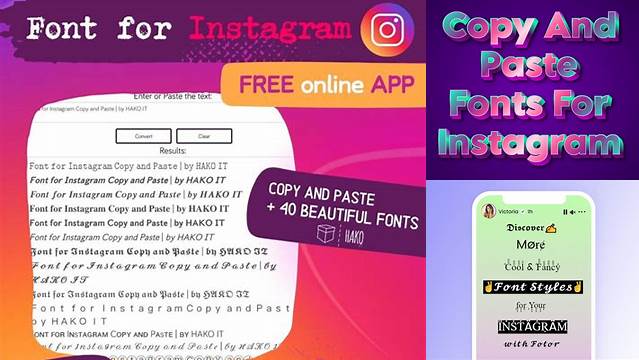
Cool Fonts For Instagram On IPhone: Copy & Paste!
Hey guys! Want to spice up your Instagram game? Let's talk about fonts for Instagram on iPhone! You know, those cool and quirky fonts you see in bios and captions that make you go, "How did they do that?" Well, it's easier than you think, and we're going to dive deep into all the ways you can get those eye-catching fonts on your iPhone. Forget the boring default font – we're about to make your Instagram profile pop!
Why Use Different Fonts on Instagram?
So, why even bother with different fonts? Think of it this way: your Instagram profile is your digital storefront. Fonts for Instagram on iPhone are like the signage and window displays that attract customers. Using unique fonts can help you:
- Stand Out: In a sea of similar profiles, a unique font can grab attention and make you memorable.
- Express Your Personality: Different fonts have different vibes. A playful font can convey fun, while a sophisticated font can project elegance.
- Enhance Your Branding: Consistent use of specific fonts can help build brand recognition.
- Increase Engagement: Visually appealing content, including text, is more likely to catch the eye and encourage interaction.
Basically, fonts for Instagram on iPhone are a simple yet powerful tool to elevate your online presence. Let's get into how you can actually use them!
How to Get Cool Fonts for Instagram on Your iPhone (Copy & Paste Method)
The easiest way to use different fonts for Instagram on iPhone is through the copy-and-paste method. There are tons of websites and apps that generate fancy text that you can then copy and paste directly into your Instagram bio, captions, or stories. Let's explore some of the best options:
Websites for Generating Instagram Fonts
1. LingoJam
LingoJam is a super popular and user-friendly website for generating fonts for Instagram on iPhone. It's incredibly simple: you type your text into the left box, and a variety of font options appear in the right box. Just scroll through, find one you like, copy it, and paste it into Instagram! LingoJam offers a wide range of styles, from cursive and bold to bubble letters and more. It's a great starting point for anyone new to fancy Instagram fonts.
2. Cool Fonts
Cool Fonts is another fantastic website dedicated to creating stylish fonts for Instagram on iPhone. Similar to LingoJam, you just type your text and browse the generated fonts. What sets Cool Fonts apart is its clean interface and a slightly different selection of font styles. You'll find everything from elegant script fonts to edgy, futuristic ones. They also have symbols and other decorative elements you can add to your text.
3. FontGet
FontGet is a website that has tons of options for you to choose from for different fonts for Instagram on iPhone. The great thing about this website is that it's very up-to-date with the latest styles. You are sure to find something new and unique that you can use to spice up your account and make you stand out among the crowd.
4. Font Generator
Font Generator offers a slightly different approach. Instead of just displaying a list of fonts, it lets you customize the text further with various symbols and decorations. This can be perfect for creating truly unique and eye-catching fonts for Instagram on iPhone. You can add stars, hearts, arrows, and other fun elements to your text, making it stand out even more.
5. Instagram Fonts
Ironically named, Instagram Fonts is another web-based tool that focuses on providing diverse fonts for Instagram on iPhone. The interface is clean and straightforward, ensuring a hassle-free experience. The fonts generated are stylish and cater to various aesthetic preferences. It’s a reliable option if you’re looking for a quick and easy solution to enhance your Instagram text.
Apps for Generating Instagram Fonts
6. Fonts - Emojis & Symbols
This app is a powerhouse for fonts for Instagram on iPhone! Not only does it offer a vast selection of fonts, but it also includes a ton of emojis and symbols you can use to further customize your text. The app is free to download, with some optional in-app purchases for premium fonts and features. It's a great all-in-one solution for adding flair to your Instagram.
7. Cool Fonts for Instagram
This app does exactly what it says on the tin! It provides a curated collection of cool fonts for Instagram on iPhone. The interface is clean and easy to navigate, making it a breeze to find the perfect font for your needs. The app also lets you save your favorite fonts for easy access later.
8. Font Keyboard
Font Keyboard is a clever app that installs a custom keyboard on your iPhone. This means you can type directly in fancy fonts within the Instagram app, without having to copy and paste. It's a super convenient option for frequent users of custom fonts for Instagram on iPhone. The app offers a variety of fonts, and you can switch between them seamlessly while typing.
9. FancyKey Keyboard
FancyKey Keyboard is another fantastic keyboard app with a focus on customization. It offers a wide range of fonts for Instagram on iPhone, as well as themes, emojis, and other fun features. The keyboard is highly customizable, allowing you to create a truly unique typing experience. It's a great option for those who want more control over their keyboard and font choices.
10. Better Fonts
Better Fonts is an app designed specifically to provide high-quality fonts for Instagram on iPhone. The app boasts a collection of professionally designed fonts that are both stylish and readable. With a user-friendly interface, Better Fonts makes it easy to find and use the perfect font to elevate your Instagram presence.
Using Symbols and Emojis with Instagram Fonts
11. Adding Symbols to Your Font Choices
Symbols can be a fantastic addition to your fonts for Instagram on iPhone, adding a touch of personality and visual flair. Many font generator websites and apps offer a selection of symbols you can easily incorporate into your text. Think about using stars, hearts, arrows, or other decorative elements to emphasize certain words or phrases. Combining symbols with unique fonts can create a truly eye-catching effect.
12. Incorporating Emojis for Emphasis
Emojis are a universal language, and they can be incredibly effective in adding emotion and context to your Instagram captions and bio. When used strategically alongside your fonts for Instagram on iPhone, emojis can help you connect with your audience on a deeper level. Use them to highlight key points, express feelings, or simply add a bit of fun to your text. Just be careful not to overdo it – a few well-placed emojis can go a long way!
13. Creating Unique Text Styles with Combined Elements
The real magic happens when you start combining different fonts for Instagram on iPhone with symbols and emojis. Experiment with different combinations to create unique text styles that reflect your personality and brand. Try using a bold font for your bio name, a cursive font for your captions, and sprinkle in some emojis for added flair. The possibilities are endless!
Font Styles and Their Aesthetic Appeal
14. Bold Fonts for Emphasis
Bold fonts are perfect for drawing attention to specific words or phrases in your Instagram captions or bio. They convey a sense of strength and importance, making them ideal for headlines or key messages. When choosing fonts for Instagram on iPhone, consider using a bold font for your profile name or a call to action in your captions.
15. Cursive Fonts for Elegance
Cursive fonts add a touch of elegance and sophistication to your Instagram profile. They're great for conveying a sense of style and refinement. Consider using a cursive font for your bio description or for quotes in your captions. However, make sure the cursive font you choose is still easy to read, as legibility is key.
16. Bubble Fonts for Playfulness
Bubble fonts are fun, playful, and attention-grabbing. They're perfect for expressing a lighthearted and energetic personality. If your Instagram feed is all about fun and creativity, a bubble font might be a great choice. Use it sparingly, perhaps for highlighting a special announcement or event in your stories.
17. Serif Fonts for Traditional Look
Serif fonts have a classic and traditional look, making them ideal for conveying a sense of authority and trustworthiness. If your brand or personal style leans towards the formal and sophisticated, a serif font can be a great choice for your fonts for Instagram on iPhone. They work particularly well in bios and for longer captions where readability is important.
18. Sans-Serif Fonts for Modern Look
Sans-serif fonts are clean, modern, and minimalist. They're a great choice for creating a sleek and contemporary Instagram aesthetic. Sans-serif fonts for Instagram on iPhone are highly versatile and work well in a variety of contexts, from bio descriptions to captions and stories. They are particularly effective for brands aiming for a modern and approachable image.
Optimizing Your Instagram Bio with Unique Fonts
19. Creating an Attractive Bio with Stylish Fonts
Your Instagram bio is prime real estate, and using stylish fonts for Instagram on iPhone can make it even more effective. A well-crafted bio with a unique font can grab attention and encourage visitors to follow you. Think about using a font that reflects your personality or brand identity. Keep it concise and engaging, and use different fonts to highlight key information.
20. Highlighting Key Information with Different Fonts
Using different fonts for Instagram on iPhone in your bio can help you highlight important information. For example, you might use a bold font for your name or a cursive font for your tagline. This helps to break up the text and make it easier for visitors to scan and understand your profile. Think about what you want people to notice first and use fonts strategically to draw their attention.
21. Showcasing Personality Through Font Choices
Your font choice can say a lot about your personality or brand. Are you playful and fun? Sophisticated and elegant? Choose fonts for Instagram on iPhone that align with your overall aesthetic. This helps to create a cohesive and memorable brand image. Don't be afraid to experiment with different fonts until you find the perfect fit.
Using Fonts in Instagram Captions and Stories
22. Enhancing Captions with Creative Fonts
Captions are your opportunity to engage with your audience and tell a story. Using creative fonts for Instagram on iPhone can make your captions more visually appealing and encourage people to read them. Consider using different fonts for headings, subheadings, and the main body of your text to create a visually dynamic caption.
23. Making Stories More Engaging with Text Variety
Instagram Stories are a fast-paced and visual medium. Adding text with unique fonts for Instagram on iPhone can help you capture attention and communicate your message effectively. Experiment with different fonts to create visually interesting stories that stand out from the crowd. You can also use animated text effects to add even more flair.
24. Font Consistency Across Posts and Stories
While it's fun to experiment with different fonts for Instagram on iPhone, it's important to maintain some consistency across your posts and stories. Choose a few key fonts that align with your brand and use them regularly. This helps to create a cohesive visual identity and makes your content more recognizable.
Troubleshooting Font Display Issues on Instagram
25. Addressing Font Compatibility Issues on Different Devices
Sometimes, fonts for Instagram on iPhone might not display correctly on other devices or platforms. This is because some fonts are not universally supported. If you're experiencing font compatibility issues, try using a more common font or a font that is known to be widely supported. You can also test your fonts on different devices to ensure they display correctly.
26. Ensuring Readability of Chosen Fonts
While it's important to choose stylish fonts for Instagram on iPhone, readability should always be your top priority. Avoid fonts that are too small, too ornate, or too difficult to read. Choose fonts that are clear and legible, even on smaller screens. Remember, the goal is to communicate your message effectively, so make sure your fonts don't get in the way.
27. Handling Font Display Errors and Workarounds
If you encounter font display errors on Instagram, there are a few workarounds you can try. First, make sure you're using the latest version of the Instagram app. You can also try clearing your app cache or reinstalling the app. If the issue persists, try using a different font or a different font generator website or app. Sometimes, a simple change can resolve the problem.
Future Trends in Instagram Fonts and Typography
28. Emerging Font Styles and Trends
The world of typography is constantly evolving, and new font styles and trends are always emerging. Keep an eye out for new and innovative fonts for Instagram on iPhone that can help you stay ahead of the curve. Experiment with different styles and see what resonates with your audience. Staying on top of the latest trends can help you keep your Instagram feed fresh and engaging.
29. The Role of Typography in Visual Branding
Typography plays a crucial role in visual branding. Your font choices can communicate your brand's personality, values, and overall aesthetic. Think about how fonts for Instagram on iPhone can help you create a consistent and recognizable brand image. Choose fonts that align with your brand identity and use them consistently across your profile, posts, and stories.
30. Integrating Animated Fonts for Dynamic Content
Animated fonts are a rising trend in the world of social media. They add a dynamic and eye-catching element to your content, making it more engaging and memorable. Consider using animated fonts for Instagram on iPhone in your stories or reels to capture attention and stand out from the crowd. There are several apps and tools that make it easy to create animated text effects.
So there you have it, guys! A deep dive into the world of fonts for Instagram on iPhone. With all these tools and tips, you're ready to take your Instagram game to the next level. Have fun experimenting, and remember, the key is to choose fonts that reflect your personality and brand. Happy posting!